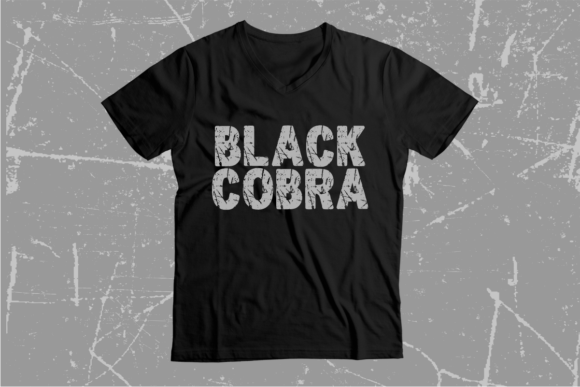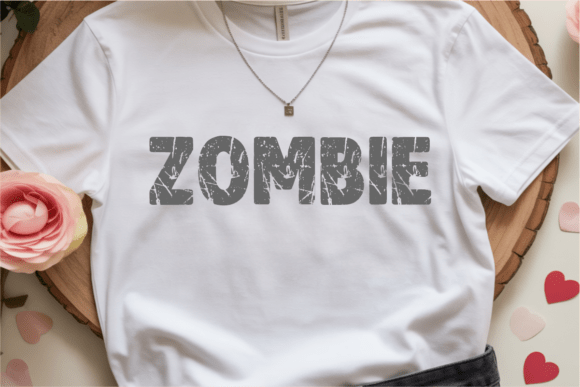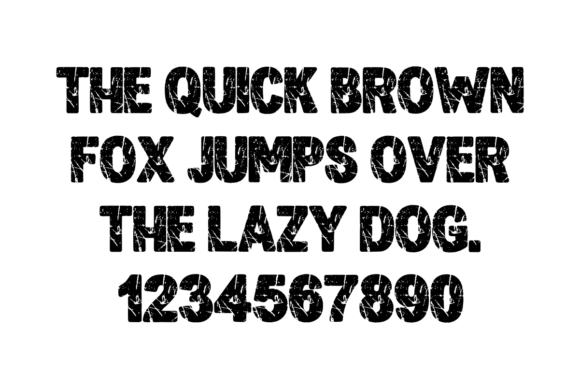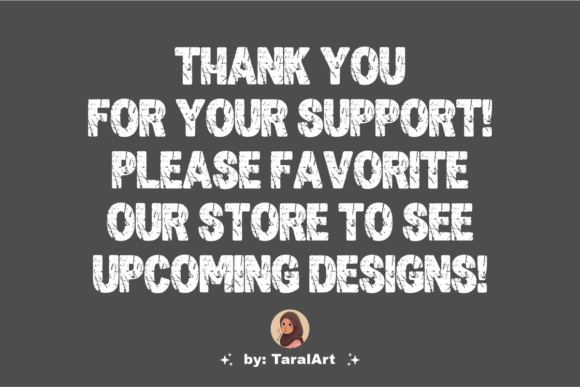
Introduction to Grunge Bold X Font
Have you ever stared at a blank design canvas, desperate for the perfect font to bring your creative project to life? I know I have. And then, like a breath of fresh air, I stumbled upon the Grunge Bold X Font – a game-changing display typeface that’s been the missing piece in my design puzzle. This powerful font is not just a design resource, but a statement-maker that elevates your work to the next level.
With its massive, heavy-duty letterforms and realistic weathered texture, the Grunge Bold X Font screams grit and determination. It’s the perfect addition to any high-energy design project, from gym logos to extreme sports event posters. And the best part? It’s available for free download, making it a valuable resource for designers of all levels.
Key Features of Grunge Bold X Font
- Unique, distressed texture design that adds a creative touch to any project
- Perfect for designers working on a variety of projects, including posters, logos, and digital art
Honest Review: Grunge Bold X Font
As a designer, I’m always on the lookout for high-quality design resources to elevate my creative projects. The Grunge Bold X Font has been a welcome addition to my toolkit, offering a unique and eye-catching style that’s perfect for adding texture and depth to my designs.
Some of the key benefits of the Grunge Bold X Font include:
- ✨ Unique, high-quality design style that adds texture and depth to your projects
However, I do have a few minor complaints about the Grunge Bold X Font. One of the limitations is that it’s not available in as many languages as some other fonts, which can be a problem if you’re working on a project that requires multilingual support.
Overall, I’m really impressed with the Grunge Bold X Font. It’s a high-quality design resource that’s perfect for adding a touch of grunge to your creative projects. With its unique style and versatility, it’s definitely worth checking out.
The Grunge Bold X Font is a high-quality design resource ideal for creative projects. This font features a unique, bold style that can add a touch of edginess to any design.
Common Use Cases for Grunge Bold X Font
The Grunge Bold X Font is ideal for a variety of creative projects, including music festival posters, band logos, and street art designs. Its bold, edgy style makes it perfect for designs that require a touch of attitude and rebellion.